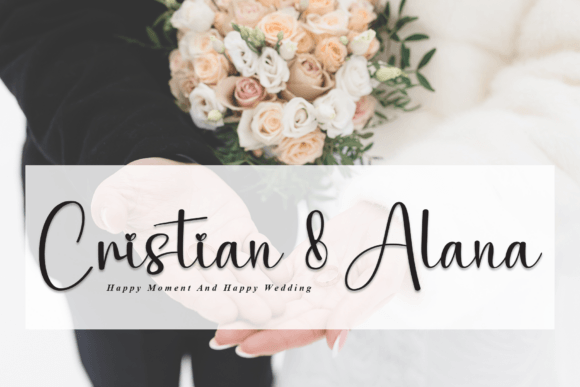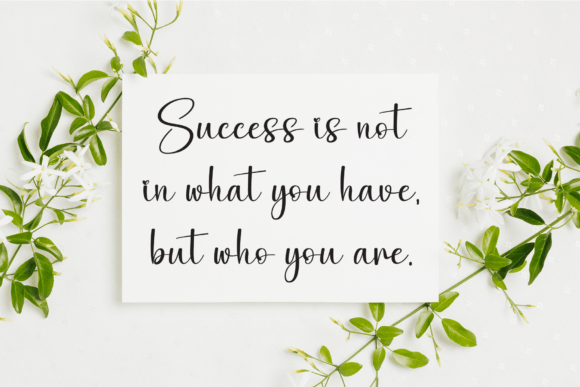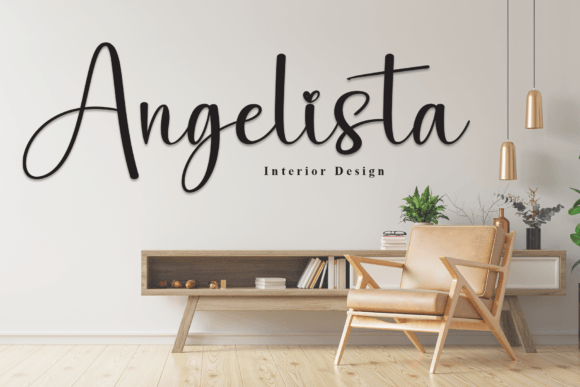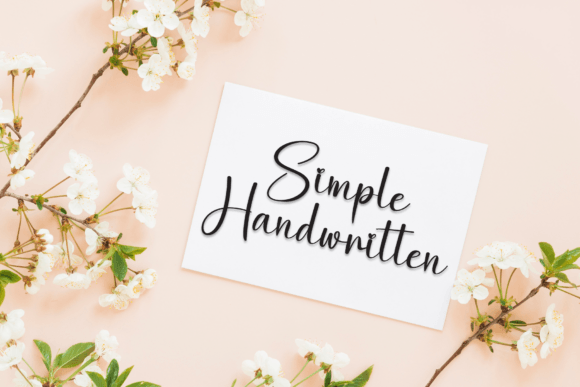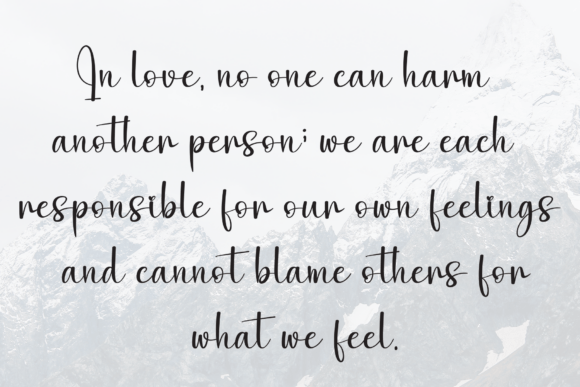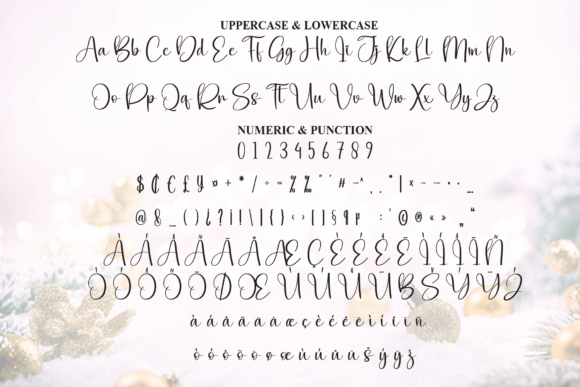
The Perfect Font for a Magical Christmas
As the snowflakes start to fall and the twinkling lights illuminate the night sky, there’s something magical about the holiday season that sparks our creativity. We find ourselves envisioning the perfect invitation, the most elegant gift tags, and the most charming Christmas cards. It’s during these moments that we realize the importance of the right font in bringing our visions to life.
Enter the Britannia Christmas Font, a stunning handwritten script that exudes elegance and sophistication. This beautiful font is designed to add a personal touch to your designs, making it perfect for branding, invitations, and stationery. Its smooth curves and natural flow create a timeless, refined look that’s sure to impress.
For designers, the Britannia Christmas Font is a valuable addition to their toolkit. Its versatility and charm make it a go-to choice for any holiday project, and its sophisticated look ensures that your designs will stand out from the crowd.
Britannia Christmas Font Key Features
- Font Style: Ornate, festive, and elegant font suitable for Christmas and holiday designs.
- Font Size: This font is available in multiple sizes, ranging from 24pt to 96pt, making it suitable for various design applications.
- Resolution: The font is designed to be clear and legible at resolutions up to 300 DPI (dots per inch), ensuring it looks great in print and digital designs.
- Unique Characteristics: Britannia Christmas Font features intricate details, swashes, and flourishes that add a touch of elegance and sophistication to holiday designs.
Britannia Christmas Font Review
Overall, I think the Britannia Christmas Font is a lovely addition to any winter design project. It’s ✨ elegant and ✨ sophisticated, perfect for creating a high-end holiday atmosphere.
The font’s ✨ classic feel and ✨ ornate details make it a great choice for invitations, greeting cards, and other holiday-themed materials. The ✨ wide range of weights and styles also allows for a lot of versatility in your design.
Here are some of the font’s key features:
- ✨ Elegant and sophisticated design
- ✨ Classic feel with ornate details
- ✨ Wide range of weights and styles
- ✨ Supports both Latin and Cyrillic scripts
However, I do have a few concerns about the font’s limitations:
- ⚠️ Limited support for non-Latin scripts
- ⚠️ May not be suitable for very small font sizes
- ⚠️ Can be difficult to read in certain color schemes
Overall, I think the Britannia Christmas Font is a great choice for designers who want to add a touch of elegance to their holiday projects. While it has some limitations, its versatility and classic design make it a worthwhile addition to any font collection.
Tips for Getting the Most Out of the Britannia Christmas Font
To get the most out of the Britannia Christmas Font, consider the following tips:
– Use it in combination with festive graphics and colors to create a cohesive holiday design.
– Experiment with different font sizes and styles to add visual interest to your design.
– Use the font to create a bold, eye-catching headline or title.
The Britannia Christmas Font is commonly used in the following scenarios:
– Holiday greeting cards and invitations.
– Christmas party and event invitations.
– Holiday marketing materials and advertisements.
– Personalized holiday gifts and decorations.
Q: Can I customize the Britannia Christmas Font to fit my specific design needs?
Yes, the Britannia Christmas Font is designed to be highly customizable. You can adjust font sizes, line heights, and spacing to suit your design requirements. Additionally, the font’s OpenType features allow for advanced typography and layout control.